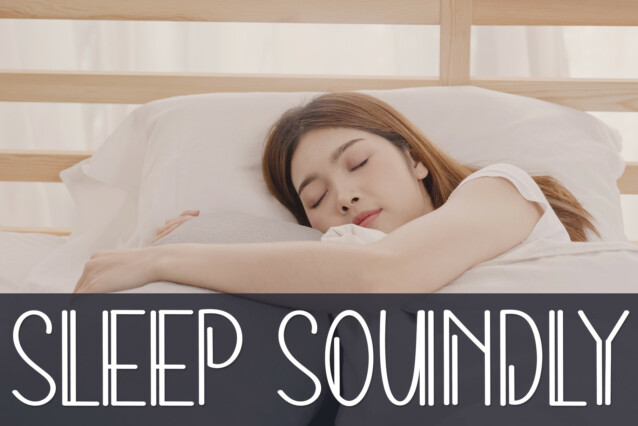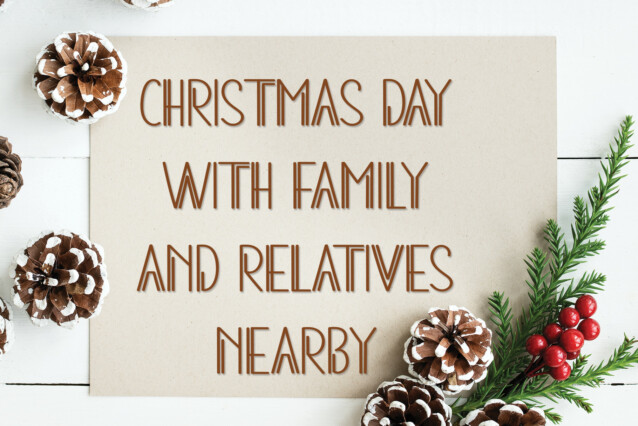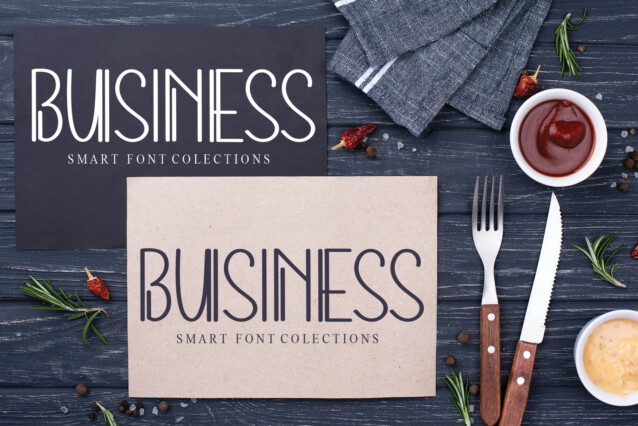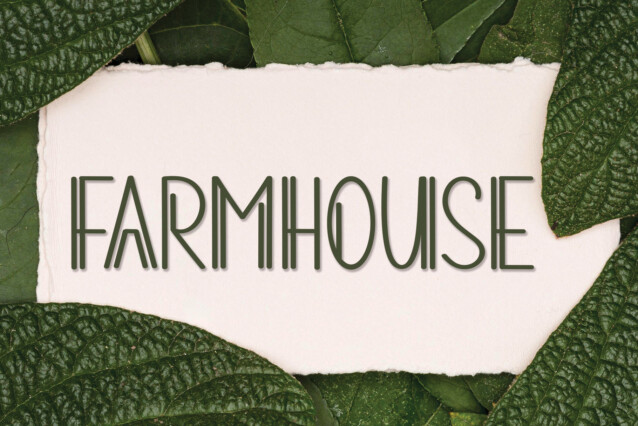
Neon Night Display Font
Neon Night Display Font is a cool and trendy display font. No matter the topic, this font will be an incredible asset to your fonts’ library, as it has the potential to elevate any creation.